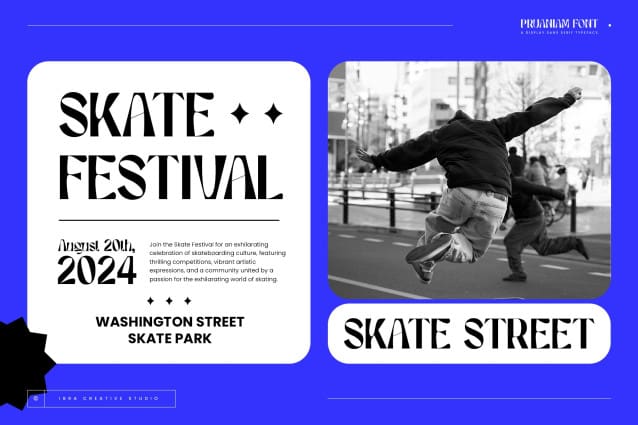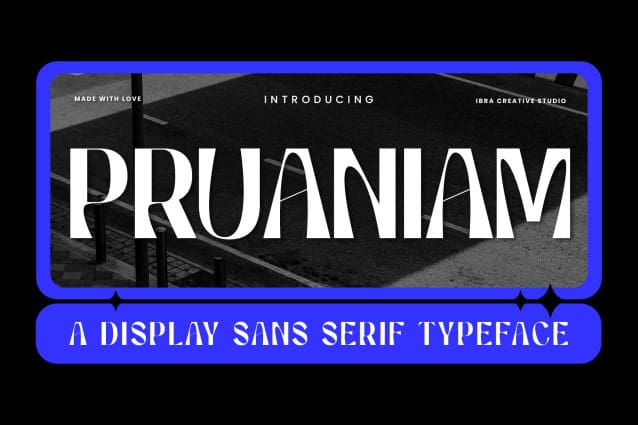
Pruaniam Display Font
Pruaniam Display Font is a sophisticated display sans-serif typeface that effortlessly balances modern aesthetics with timeless design elements. With clean lines and subtle curves, Pruaniam exudes a sense of contemporary elegance, making it well-suited for a variety of creative applications. The typeface showcases a harmonious blend of legibility and stylistic flair, offering a distinctive personality that captures attention without sacrificing readability. Pruaniam’s versatile nature enables it to seamlessly adapt to both digital and print contexts, making it a go-to choice for designers seeking a refined and distinctive sans-serif option that adds a touch of sophistication to any project.
Pruaniam Display Font is perfect for branding projects, logo, wedding designs, social media posts, advertisements, product packaging, product designs, label, photography, watermark, invitation, stationery, game, fashion and any projects.